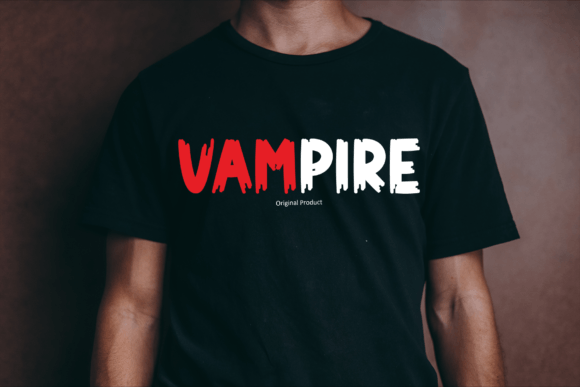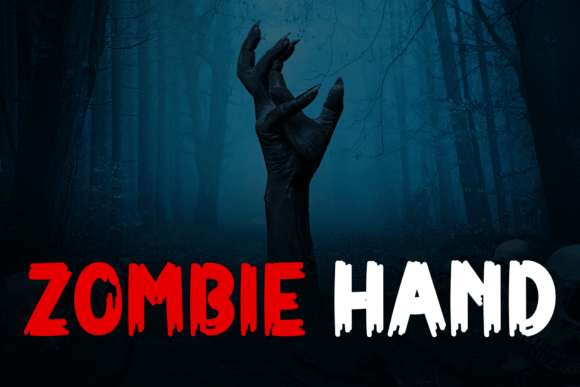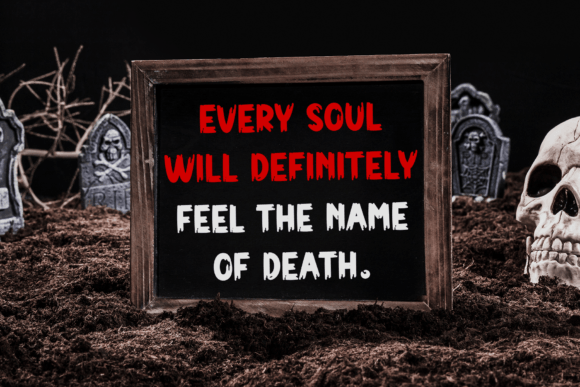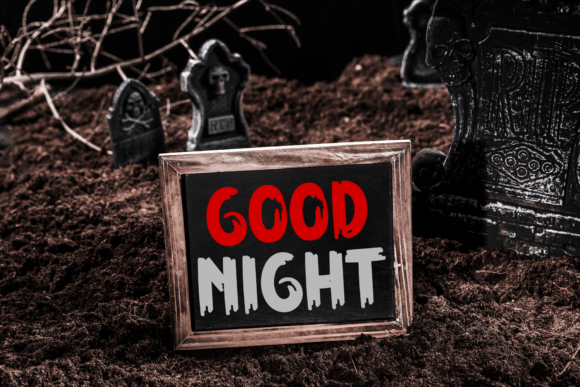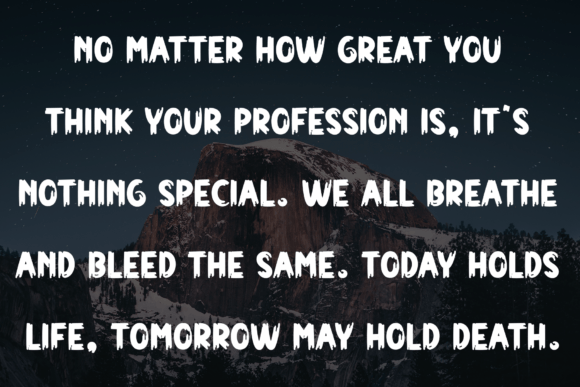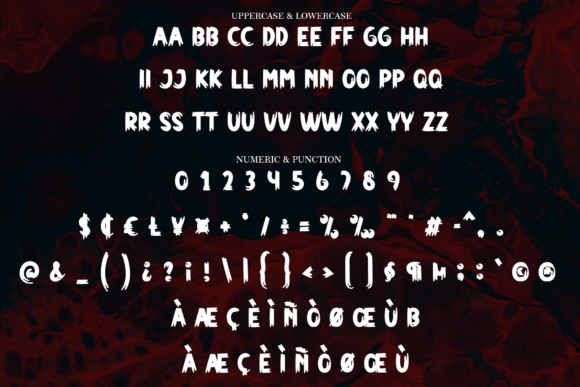
The Bloody Font: A Haunting Script for Spine-Chilling Designs
Are you looking for a font that adds a touch of horror and suspense to your designs? Look no further than the Bloody Font, a haunting script and handwritten typeface that’s perfect for Halloween-themed projects, gothic branding, and any design that desires a blood-curdling and eerie aesthetic.
What is the Bloody Font?
The Bloody Font is a unique and eye-catching typeface that mimics the look of blood-stained writing. With its jagged strokes and splatters, it evokes a sense of fear and unease, making it perfect for designers who want to create a chilling and macabre atmosphere in their work.
Characteristics of the Bloody Font
The Bloody Font has several distinct characteristics that set it apart from other typefaces. Some of its key features include:
- Jagged strokes: The Bloody Font features jagged, uneven strokes that give it a rough and distressed look.
- Blood splatters: The font includes splatters and drips that add to its eerie and unsettling effect.
- Handwritten feel: The Bloody Font has a handwritten feel that’s perfect for creating a sense of unease and foreboding.
Uses for the Bloody Font
The Bloody Font is a versatile typeface that can be used in a variety of design projects, including:
- Halloween-themed projects: The Bloody Font is perfect for creating spooky Halloween-themed designs, such as invitations, posters, and social media graphics.
- Gothic branding: The font’s dark and eerie aesthetic makes it a great fit for gothic-inspired branding, such as logos and packaging for goth-themed products.
- Horror and suspense designs: The Bloody Font is ideal for creating designs that require a sense of horror and suspense, such as movie posters, book covers, and video game graphics.
Tips for Using the Bloody Font
Here are some tips for using the Bloody Font effectively in your designs:
- Use it sparingly: The Bloody Font can be overwhelming if used excessively. Use it sparingly to create a sense of impact and drama.
- Pair it with contrasting fonts: Pair the Bloody Font with clean, sans-serif fonts to create a striking contrast and add visual interest to your design.
- Experiment with colors: The Bloody Font looks great in bold, bright colors, but it can also be effective in muted, pastel colors for a more subtle effect.
The Bloody Font is a unique and haunting typeface that’s perfect for designers who want to add a touch of horror and suspense to their work. With its jagged strokes and splatters, it’s ideal for Halloween-themed projects, gothic branding, and any design that desires a blood-curdling and eerie aesthetic. By following the tips outlined above, you can use the Bloody Font to create spine-chilling designs that will leave a lasting impression on your audience.